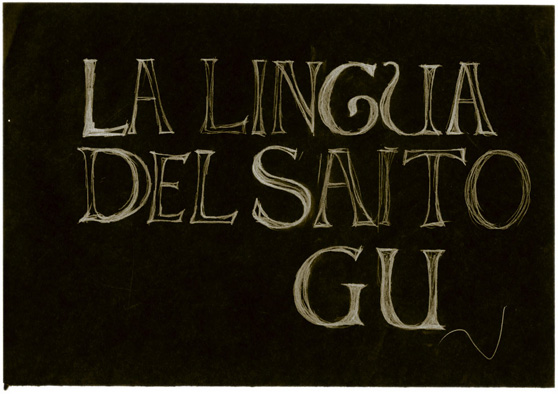
CULTIVATED IMPRECISION
ANNOMILLE
Then one evening I happened to pick up a pencil and tried sketching the title freehand on a piece of paper. This time I didnt look in any books or have any particular model in mindI was simply drawing on things stored in my memory without trying to force a particular result and with no pretense at historical accuracy, just going with what my mind suggested to my handand in one fell swoop I came up with the form for the titling font that ended up being used in the movie.